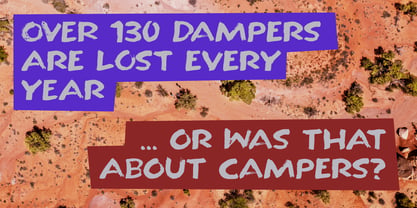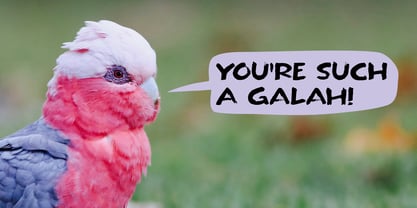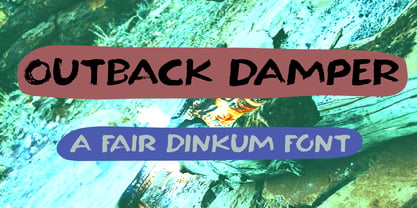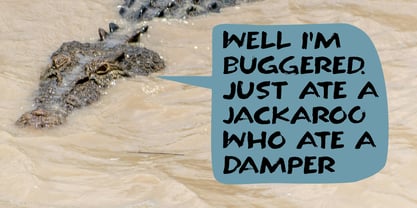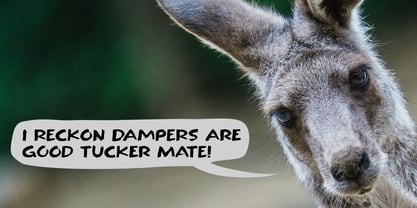
Outback Damper Pro
by Hanoded
The Outback Damper Pro Font Family was designed by David Kerkhoff and published by Hanoded. Outback Damper Pro contains 2 styles and family package options. More about this family
I have been to Australia twice; once for almost a year and once for a couple of months. During my first visit, I hitch hiked around Australia - looking for seasonal jobs, like picking grapes, lychees and avocados. I also toured the outback. During one of these camping trips, the guide made a damper - a rough bread made from flour, salt, water and some baking soda. He kneaded the dough, put it in a Dutch oven and buried it in the hot ashes of our campfire. The result was a very impressive and super delicious bread!
Outback Damper was made with a brush and ink. It comes with a set of alternates for the lower case letters and extensive language support.
About Hanoded
Hanoded is run by Dutchman David Kerkhoff. His fonts are a mishmash of styles, as he just creates whatever pops into his head. You will find a lot of brush fonts in his collection, as his favourite tools are brushes and Chinese ink, with cartoon style fonts and script fonts complementing his repertoire. Aside from making fonts, David occasionally guides tours in far-flung places, renovates his '30's house and tries reasoning with his wife and (teenage) kids. Not an easy task!